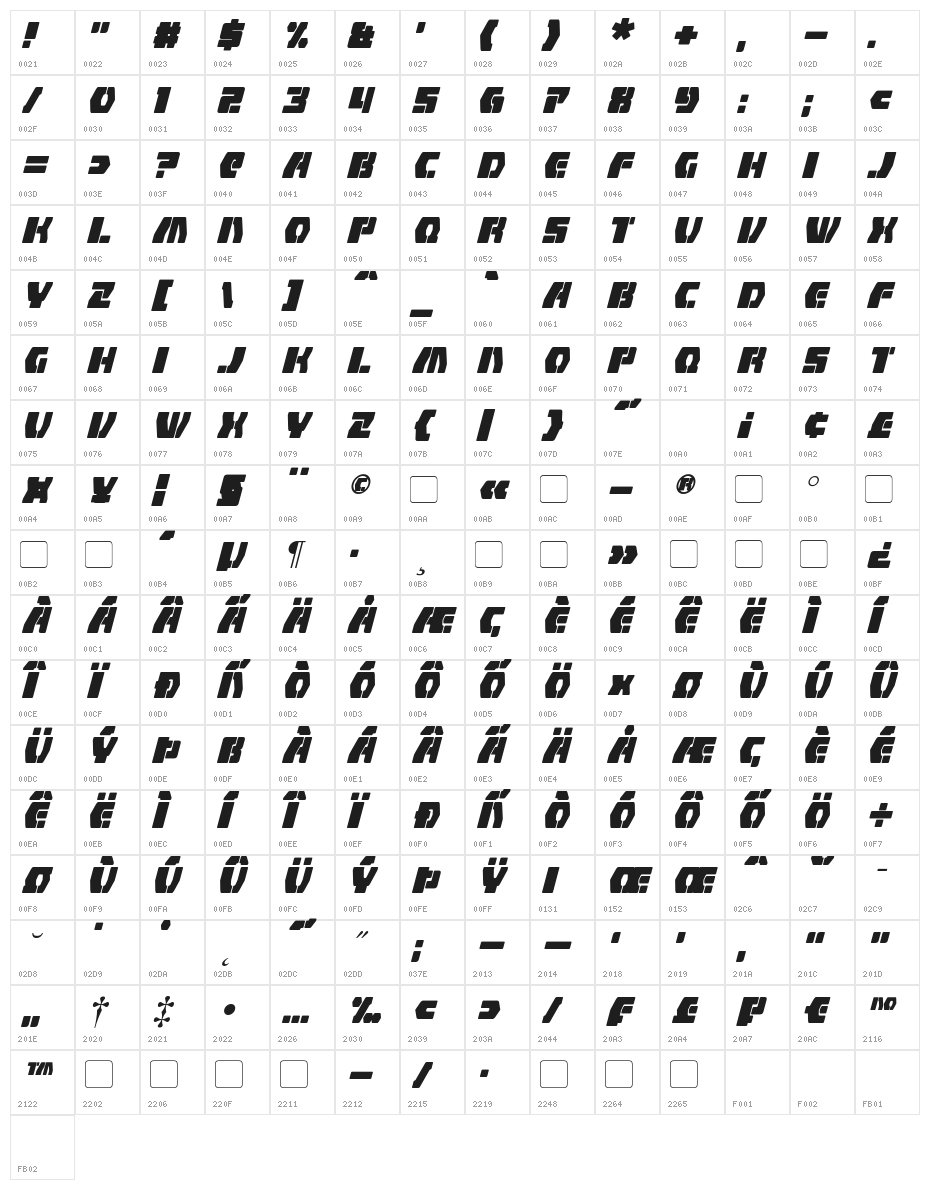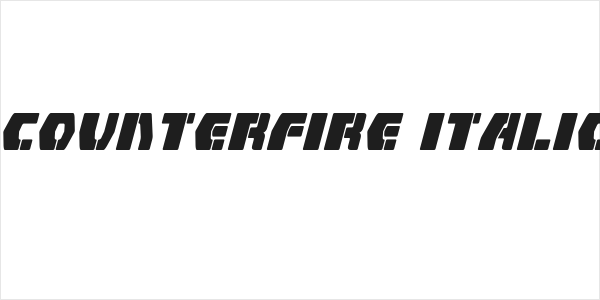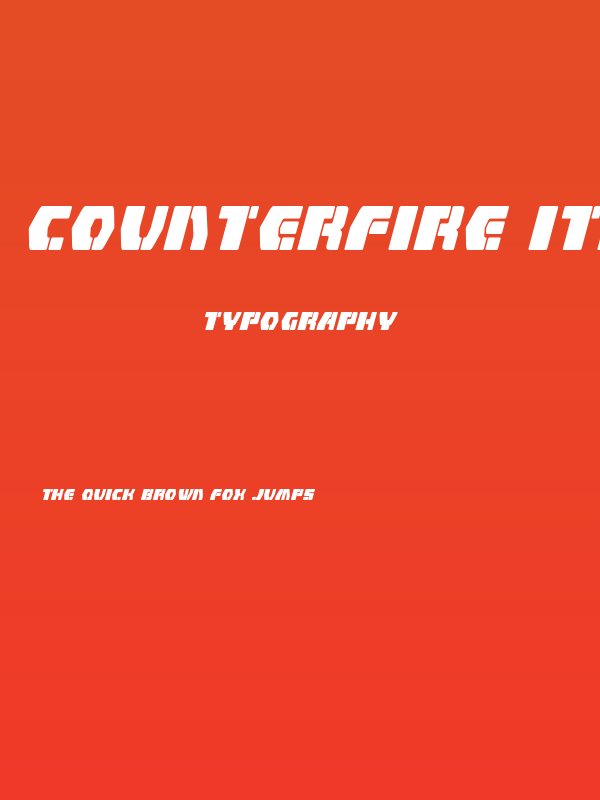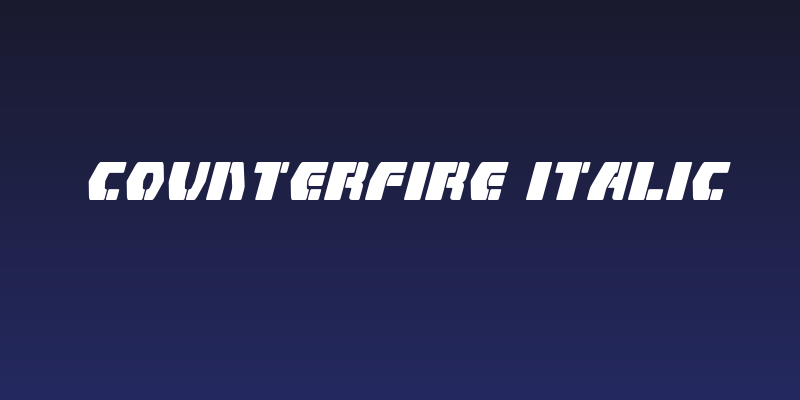
Counterfire Italic Font
Counterfire Italic Description
This font features a bold and dynamic style with a futuristic and angular design. The characters are heavily stylized, with sharp edges and a slanted orientation that gives a sense of motion and speed. The uppercase and lowercase letters maintain a consistent geometric structure, while the numbers and special characters follow the same bold and angular theme. The font's unique design makes it stand out, with a strong presence that is ideal for attention-grabbing applications.
Overall StyleFuturistic
Proposed ProjectsIdeal for sci-fi themed projects, video game titles, sports branding, and dynamic poster designs.